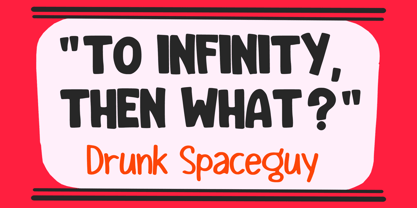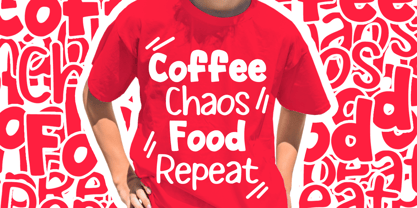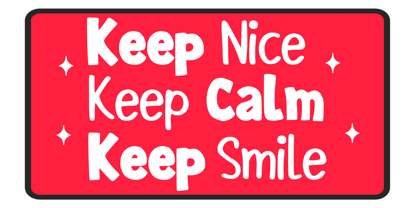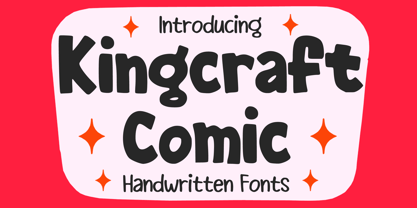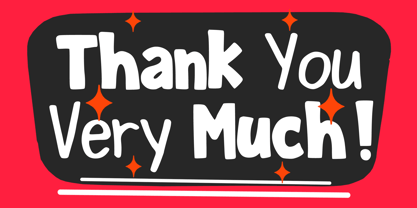
Kingcraft Comic
La familia tipográfica Kingcraft Comic fue diseñada por Gabriel Valentinus y publicada por Mvmet. Kingcraft Comic contiene 2 estilos y opciones de paquete familiar. Más información sobre esta familia
Unleash the fun with Kingcraft Comic, an exuberant comic cartoon font available in two variations, expertly crafted to enhance and electrify your designs. Ideal for a myriad of creative projects, this font elevates your designs to new heights. From sprucing up stickers to adding pizzazz to t-shirt designs, it serves as a go-to choice that infuses a dash of excitement into your work. Make your logo designs pop, transform your book or magazine covers into eye-catching standouts, and give your comics or cartoon drawings a distinct edge. More than just a tool for everyday typing, Kingcraft Comic adds an extraordinary touch to any design it graces. Whimsical yet powerful, this font is set to revolutionize your creative journey, making it perfect for branding, web design, and editorial projects. Kingcraft Comic is the ultimate choice for designers looking to make a statement.